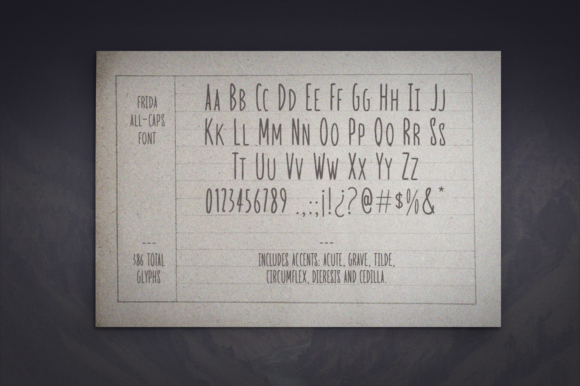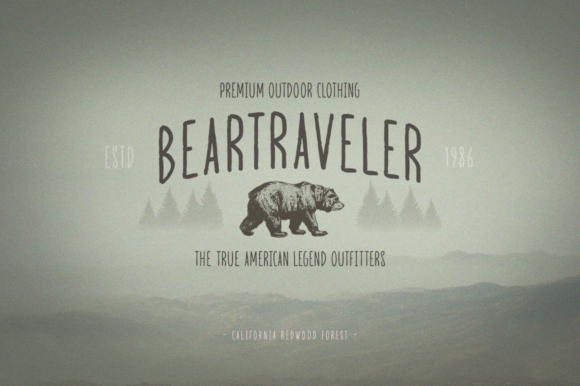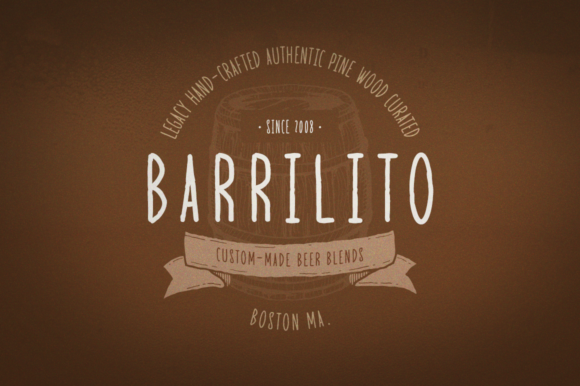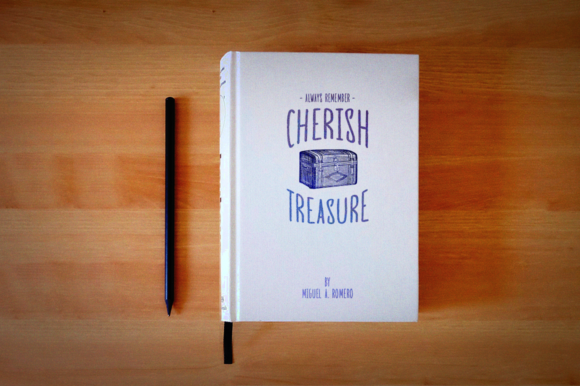
The Frida Font: A Simple yet Powerful Handwritten Companion
I’ll never forget the moment I stumbled upon the Frida font while working on a branding project for a client’s handmade jewelry line. I had spent hours scouring font libraries and marketplaces, but nothing seemed quite right. That was until I saw Frida – a beautiful, simple, and friendly handwritten font that instantly captured the essence of my client’s unique products. In this article, I’ll share my experience with Frida, its features, and how to make the most of it in your designs.
An Honest Review of Frida Font
What I Love About Frida ✨
- ✅ Natural and unique style that adds a personal touch to any design
- ✅ Works well with a variety of design applications, from digital to print
- ✅ Friendly and approachable feel that’s perfect for creative projects
- ⚠️ Limited character set compared to some other fonts
- ⚠️ May not be the best fit for very formal or corporate designs
- Experiment with OpenType features, such as ligatures and stylistic alternates, to add visual interest to your design
The Story Behind Frida Font
Frida was designed by a talented type designer who wanted to create a font that was both simple and elegant. Inspired by the works of famous artists and designers, Frida was crafted to be a versatile font that could be used in a variety of design applications. With its natural and unique style, Frida has become a popular choice among designers and crafters.
| Font Name | Frida Font |
| Author | DonMarciano |
Q: What is the Frida font best used for?
A: Frida is a versatile font that can be used for a wide range of design applications, from digital to print. It’s perfect for creative projects, such as branding, packaging, and social media graphics.
Q: What are some common design applications for Frida?